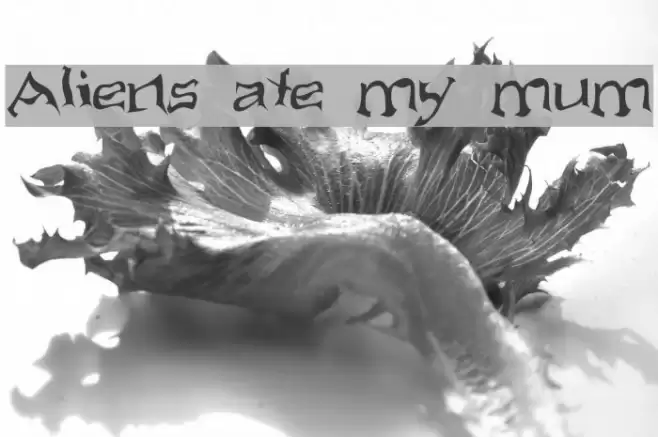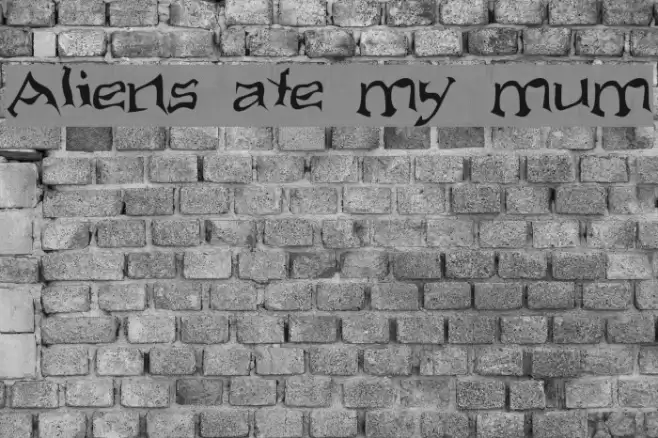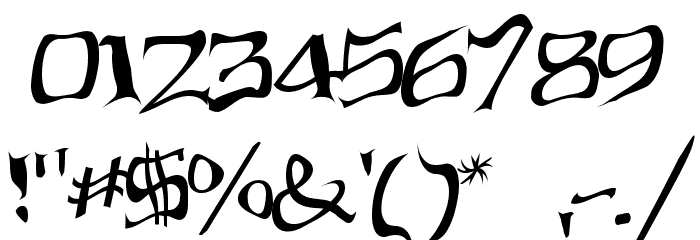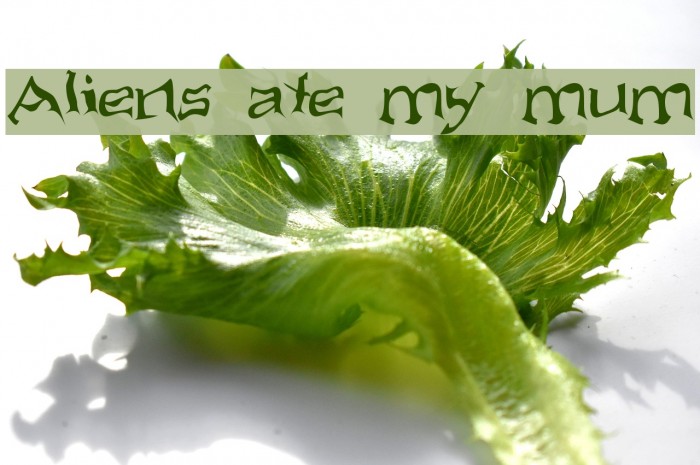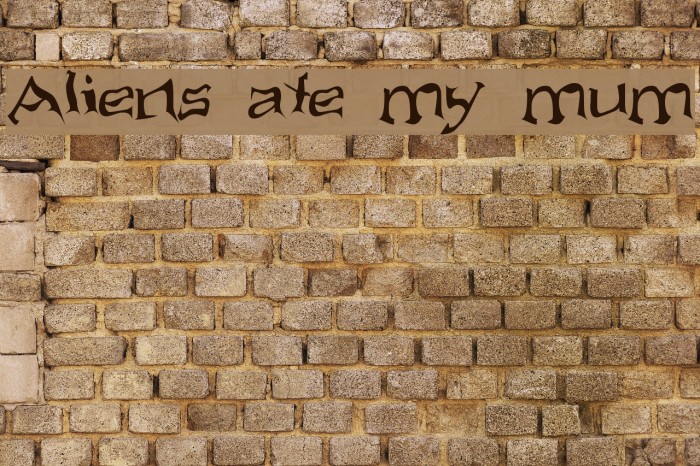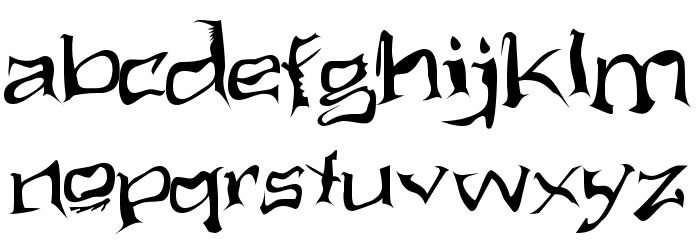
Aliens ate my mum Font
Aliens ate my mum Description
This font features a unique and edgy design with sharp, angular strokes and a slightly chaotic appearance. The characters have an irregular, jagged style that gives them a dynamic and energetic feel. The uppercase and lowercase letters maintain a consistent theme, with exaggerated serifs and pointed edges that create a sense of movement. The numbers and special characters follow the same aesthetic, adding to the overall cohesiveness of the font. This design is reminiscent of a sci-fi or horror theme, making it perfect for projects that require a bold and unconventional look.
An edgy, angular font with sharp, jagged strokes and a dynamic, chaotic style from Decorative fonts.
- Proposed Projects: Ideal for sci-fi or horror themed posters, video game titles, or edgy branding projects.
- Overall Style: Modern, Edgy